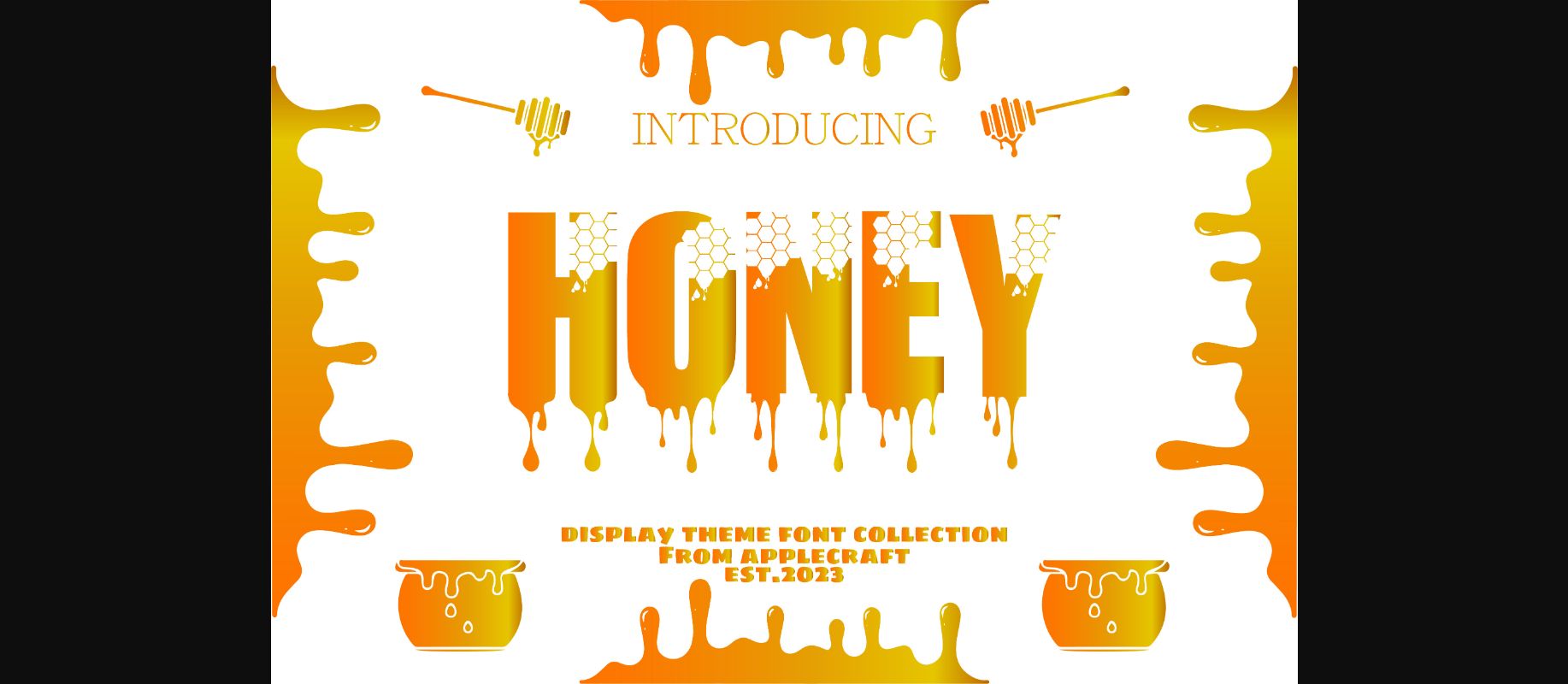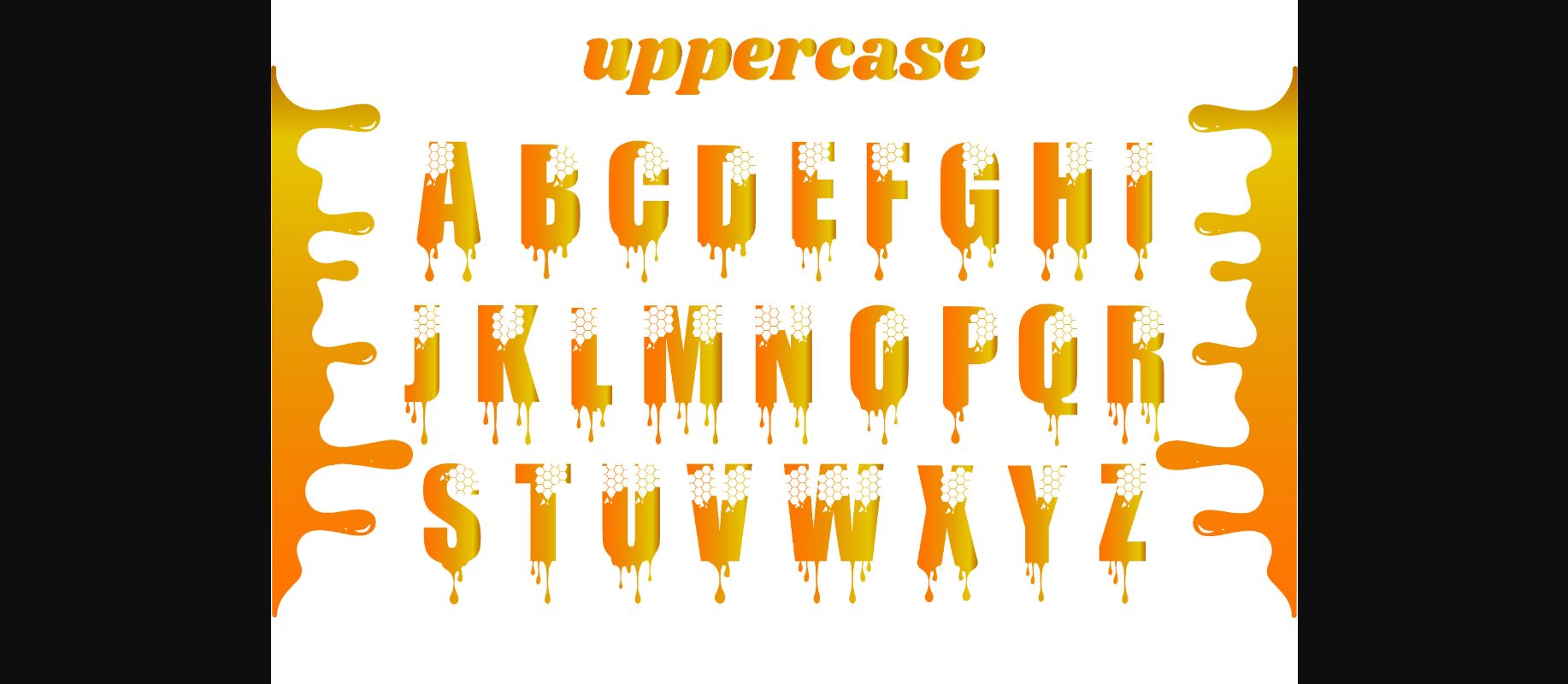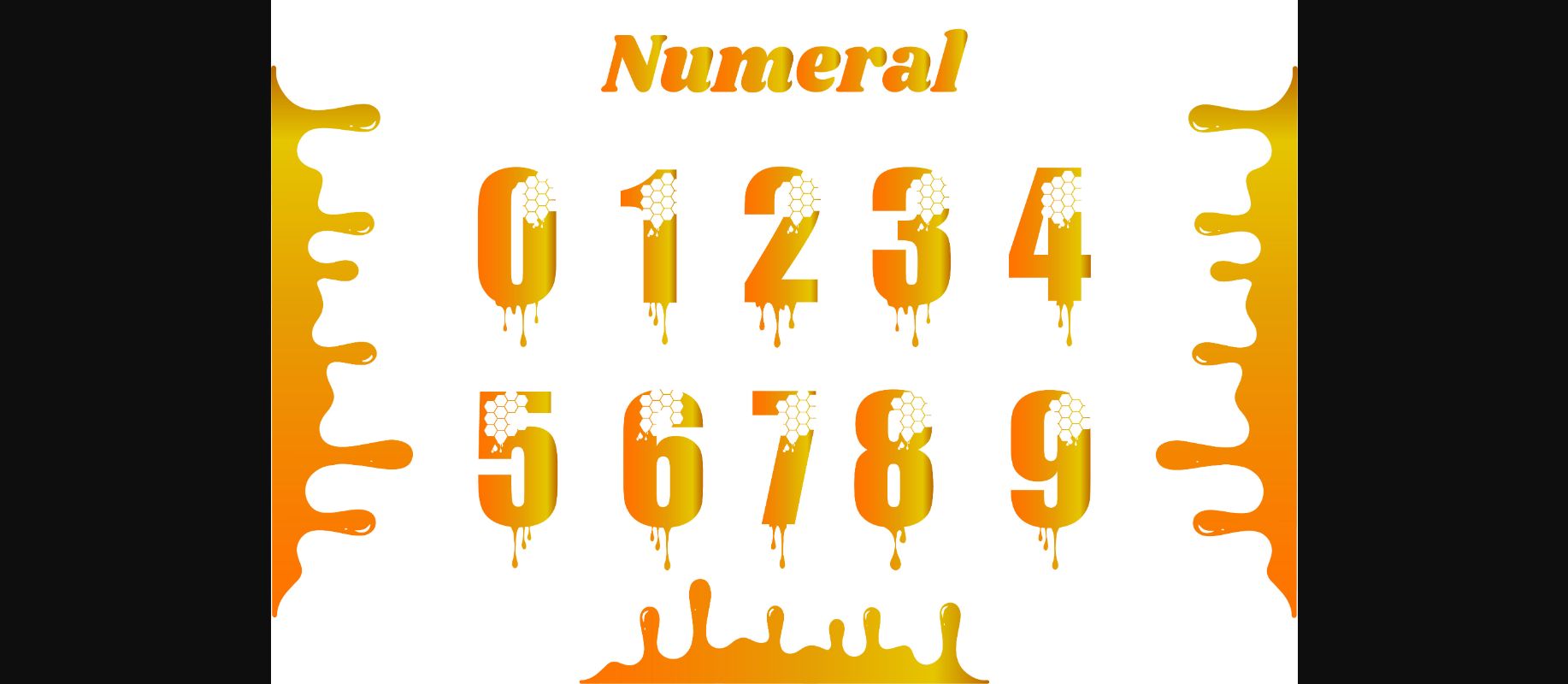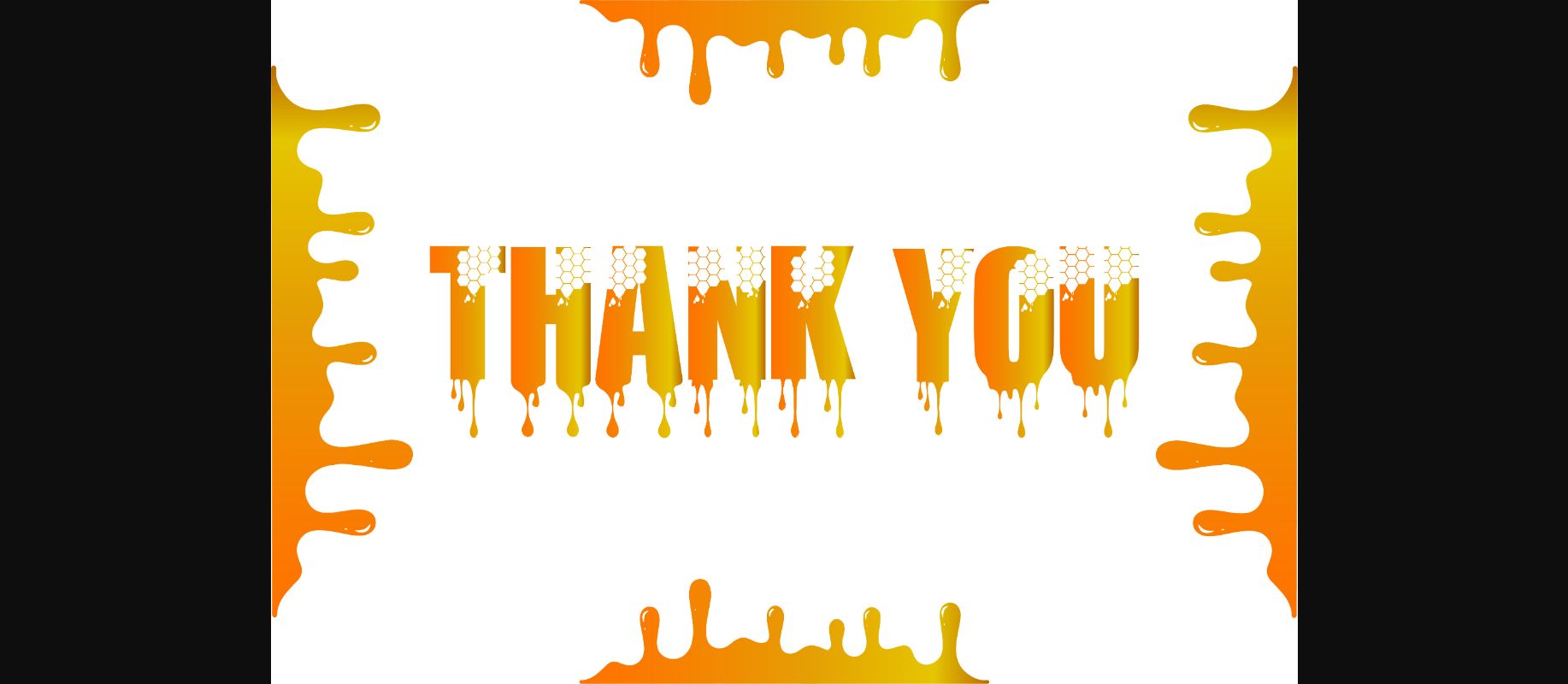
Honey is a sweet and adorable decorative font. It is perfectly suitable for any design or crafty idea! Add it confidently to your projects and you will love the results!